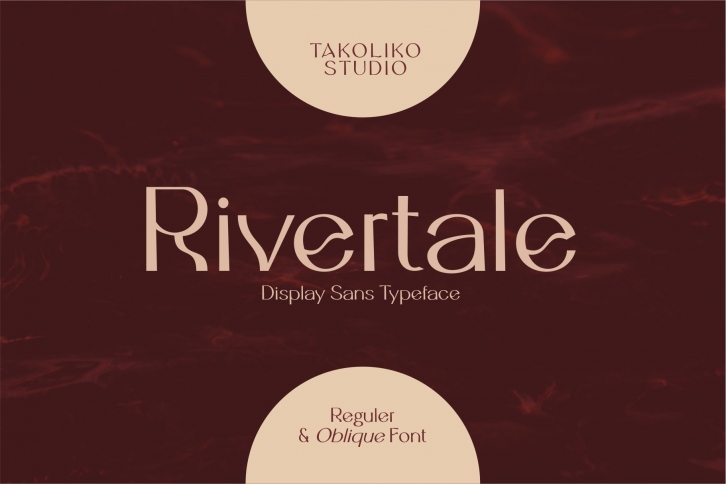
Rivertale is a beautiful font that was designed by dennidenko. It's a great choice for designers and creatives who need such a font. It was released on August 1, 2022 and the file size is 19.37 MB. Rivertale may give a more youthful, expressive and casual look to your project. It is a very beautiful, refined, elegant, and high-quality font.